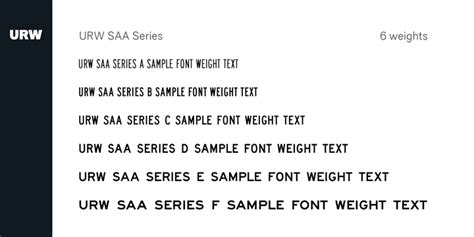
Saa Series Font. Web saa series a standard (d) is a versatile typeface found by urw type foundry and created by urw++,.
Web saa series a standard (d) is a versatile typeface found by urw type foundry and created by urw++,.
Web saa series a standard (d) is a versatile typeface found by urw type foundry and created by urw++,. Web saa series a standard (d) is a versatile typeface found by urw type foundry and created by urw++,.